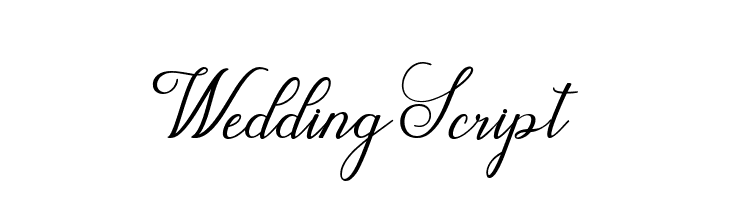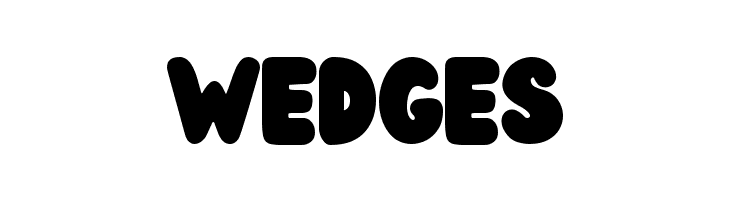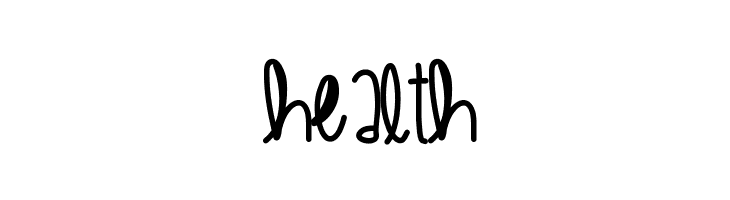
A playful, handwritten font with a whimsical and casual style.
An elegant script font with flowing, interconnected letters and ornate flourishes.
An elegant script font with flowing, interconnected letters and delicate flourishes.
A highly stylized, abstract font with angular, wedge-like shapes.
A bold, rounded font with a playful and friendly style.
A bold, three-dimensional font with a geometric, shadowed design.
A playful, dotted, handwritten-style font with a whimsical flair.
A pixelated, grid-based font with a retro digital aesthetic.